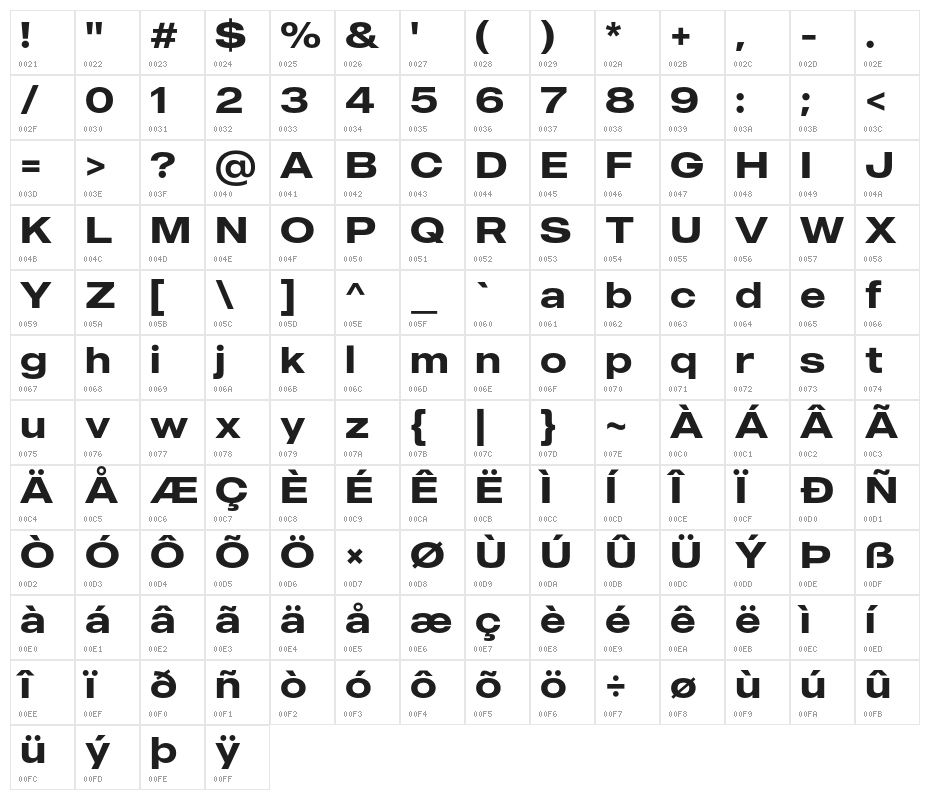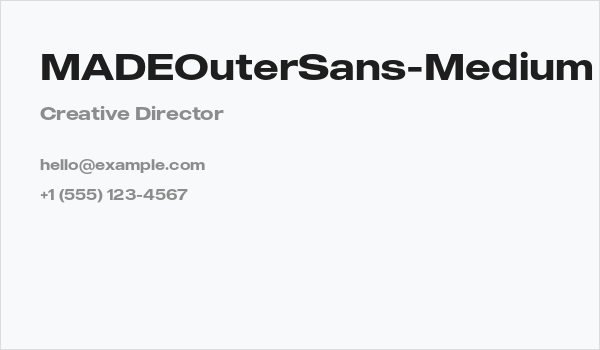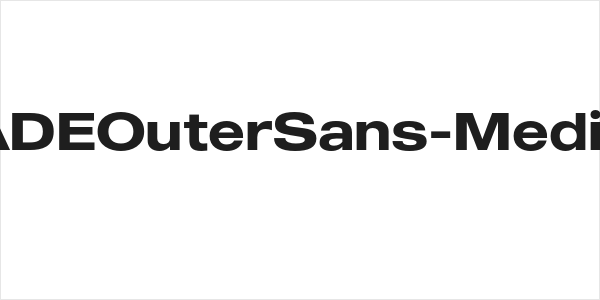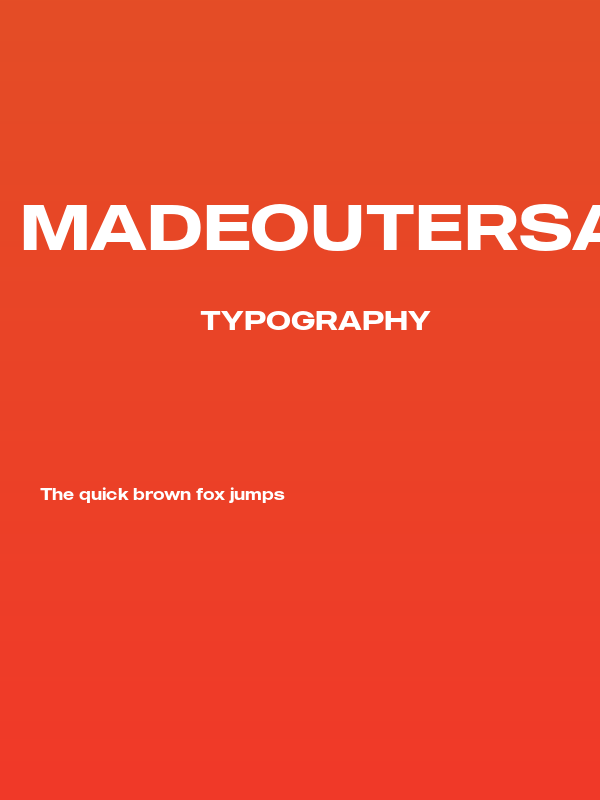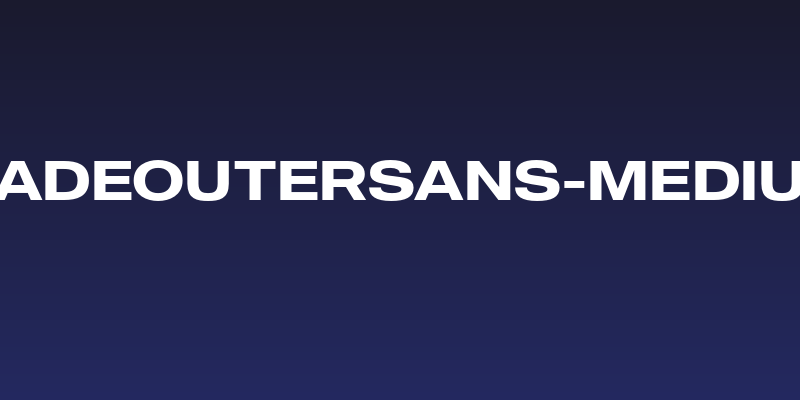
MADEOuterSans-Medium Font
MADEOuterSans-Medium Description
This font exhibits a clean and modern sans-serif style with a bold weight, making it highly legible and impactful. The characters are well-proportioned with a consistent stroke width, contributing to its uniform appearance. The uppercase and lowercase letters maintain a harmonious balance, while the numerals and special characters are designed to complement the overall aesthetic. The font's simplicity and clarity make it versatile for various design applications.
| Use Case | Headlines, Logos, Digital interfaces |
| Proposed Projects | Ideal for branding, advertising, headlines, and digital interfaces where clarity and impact are essential. |